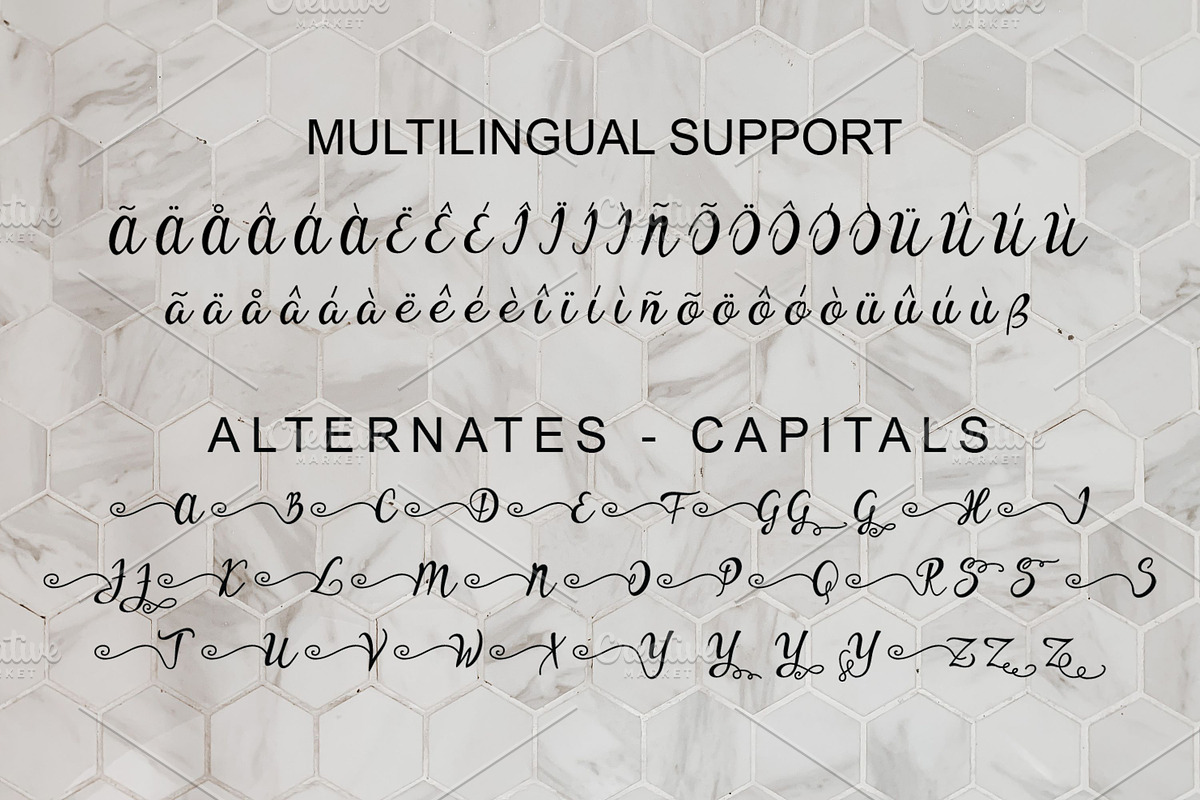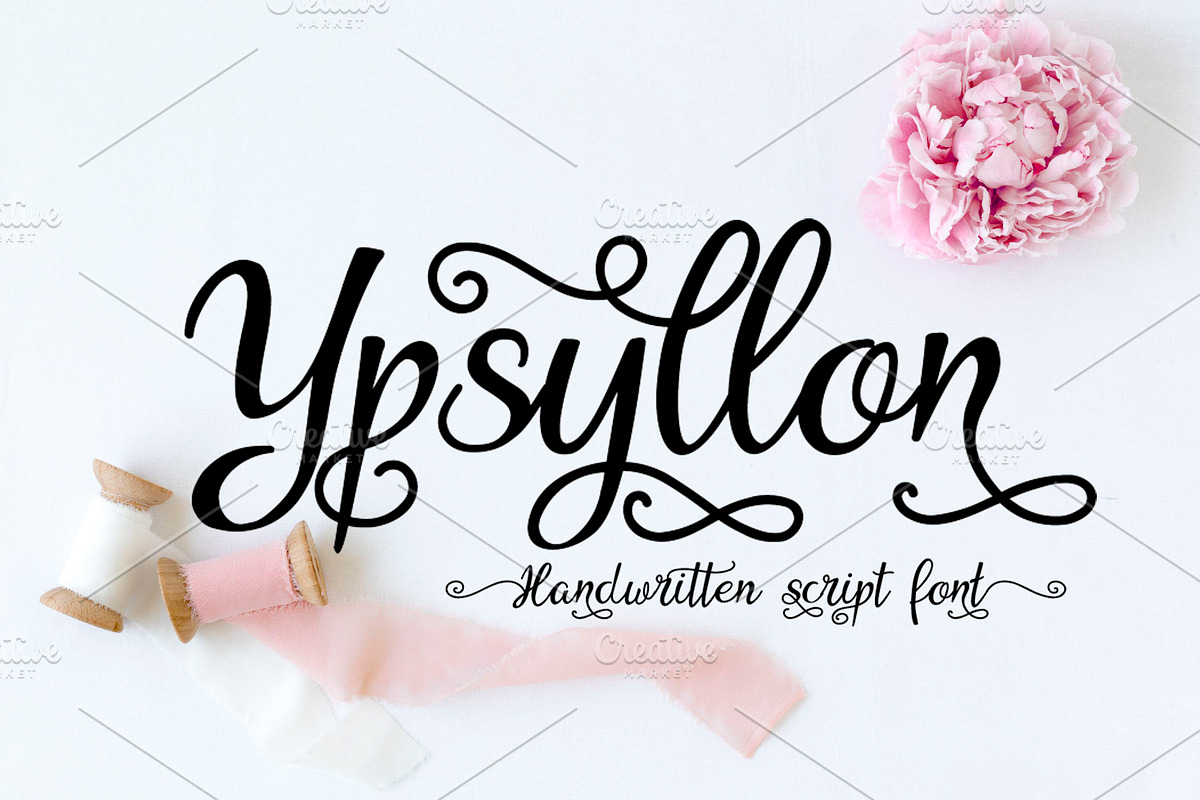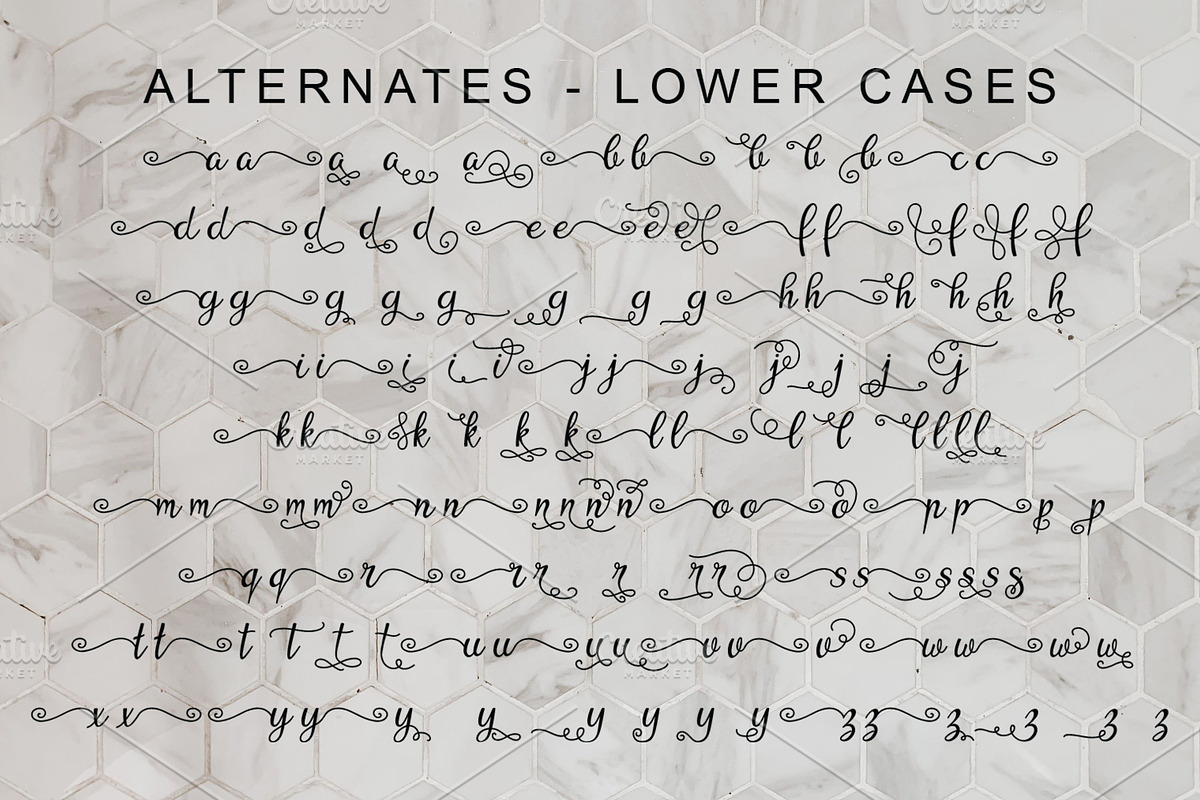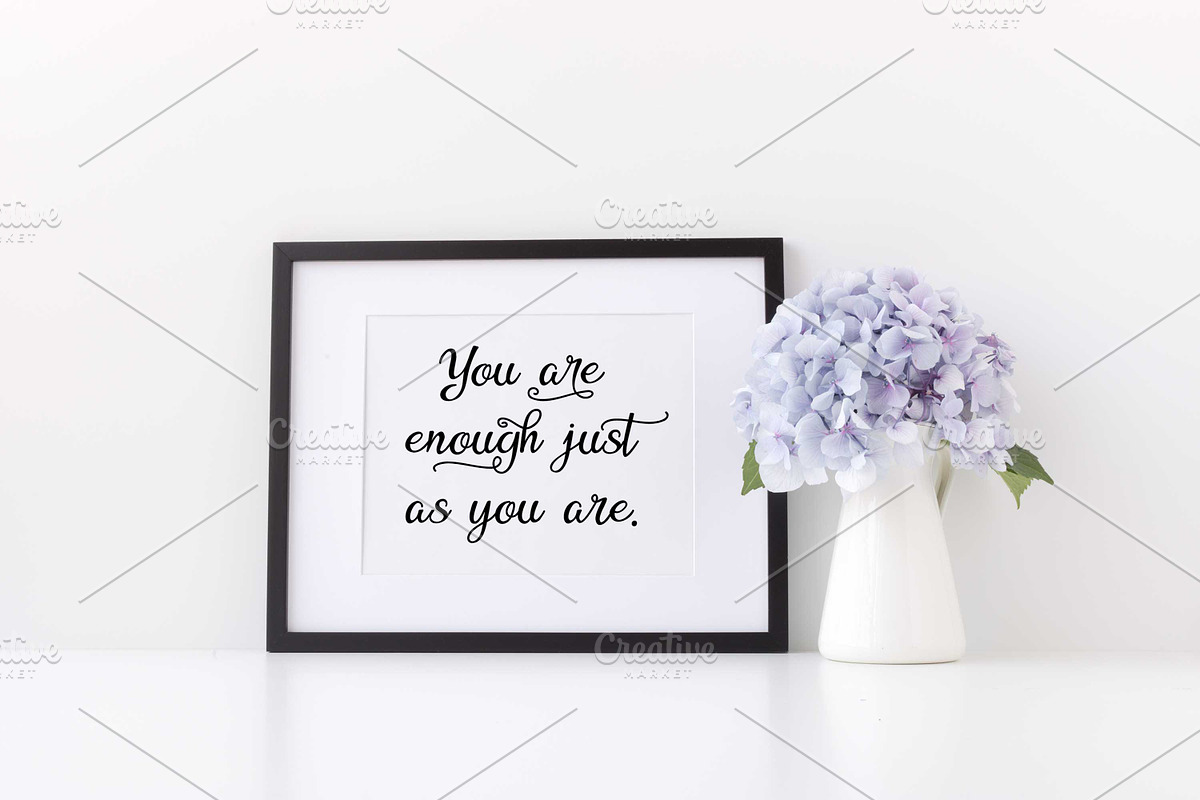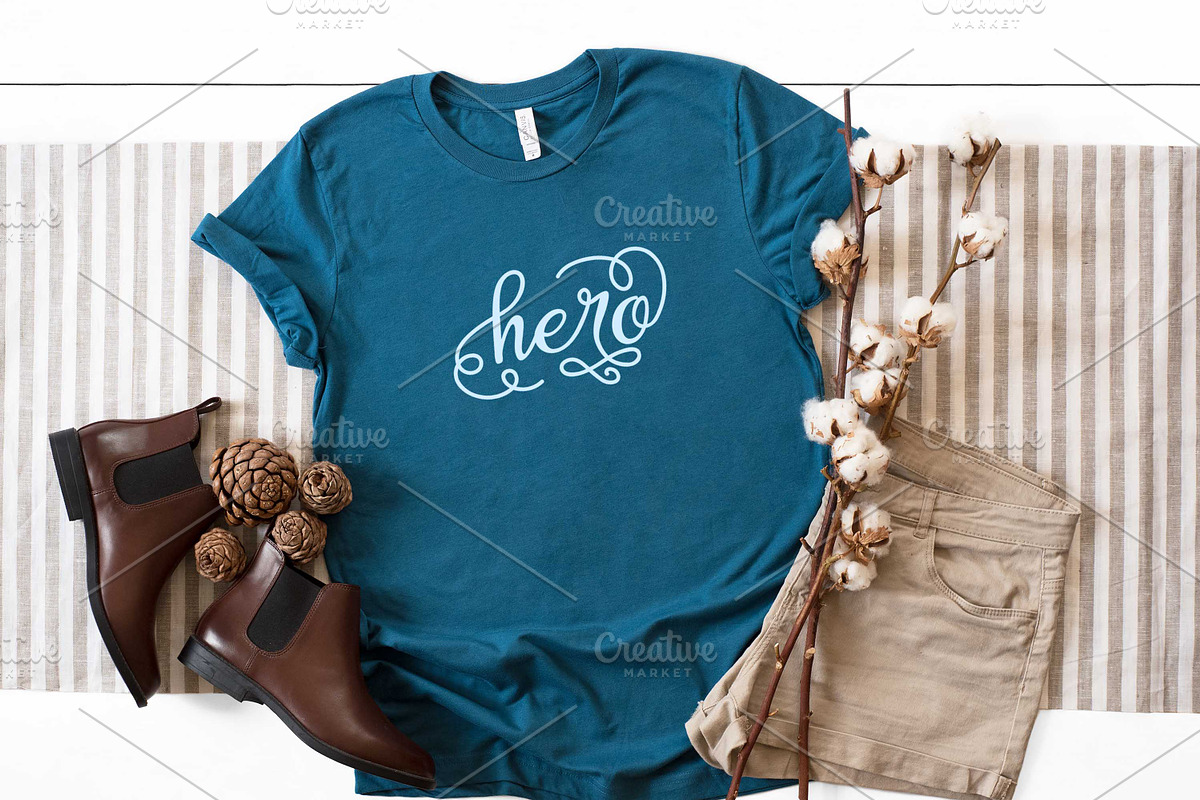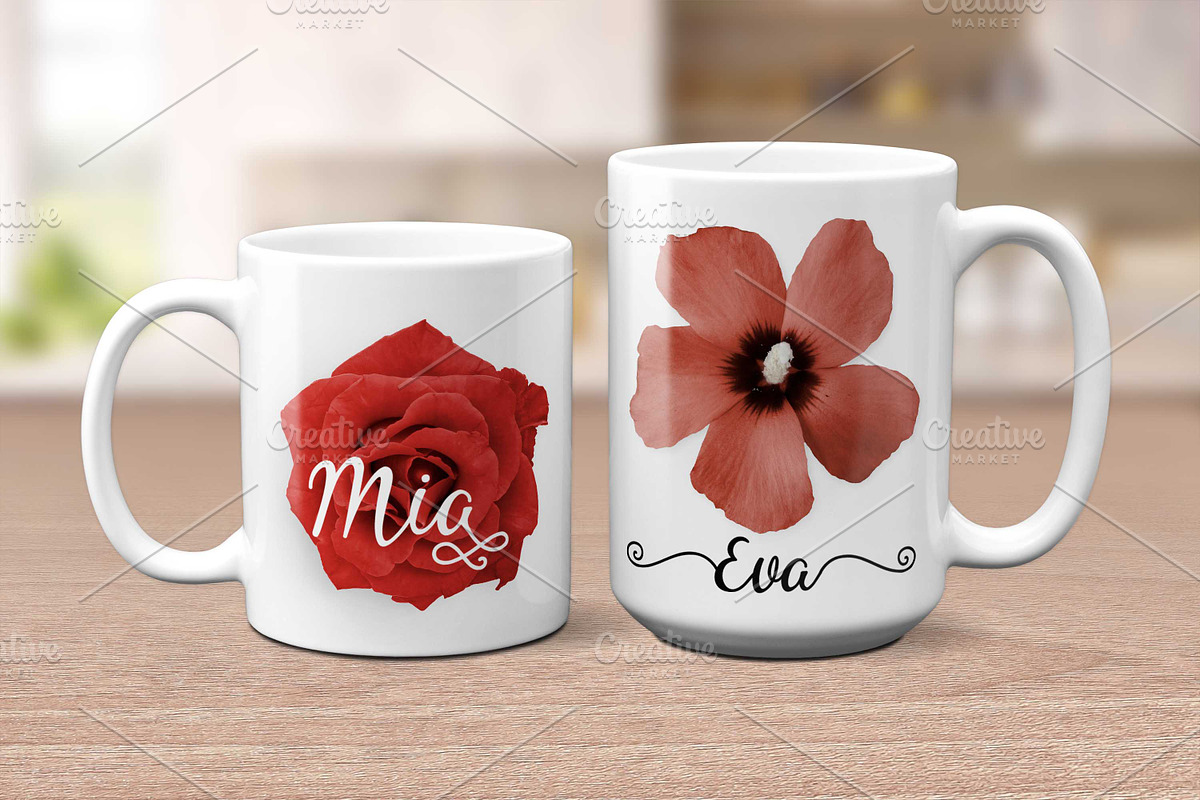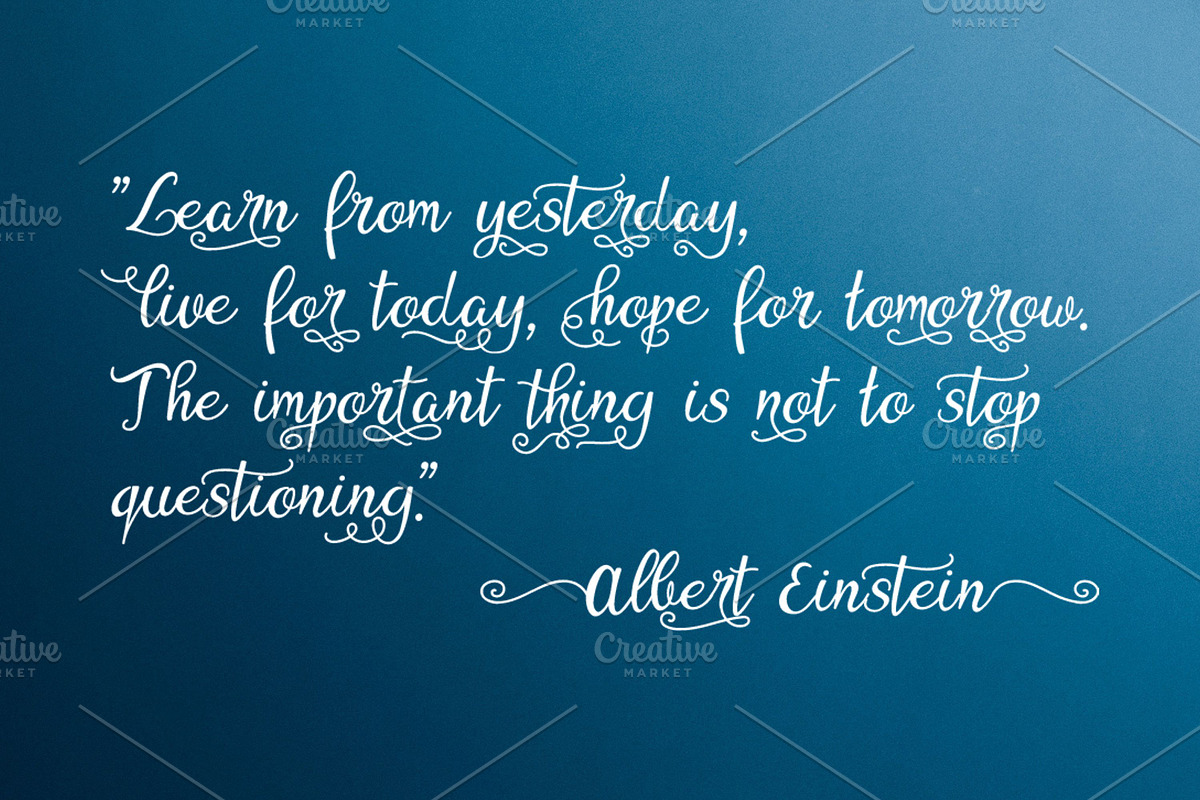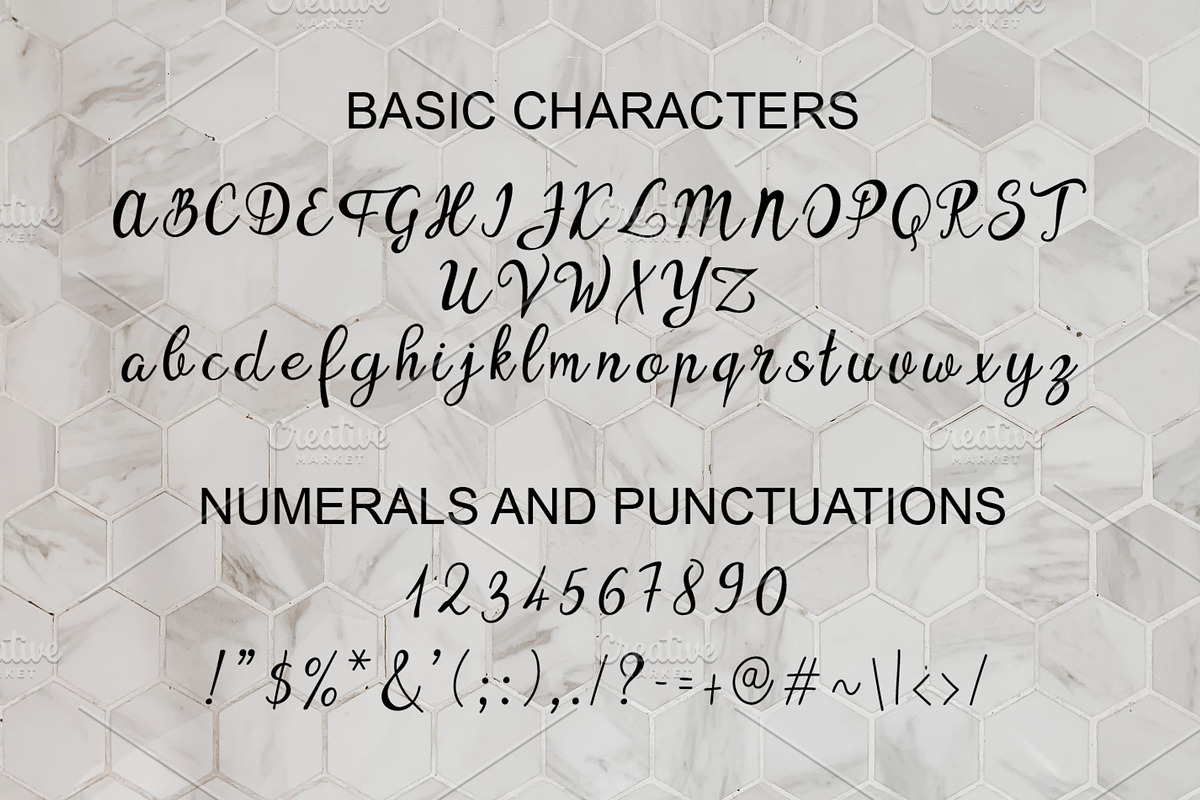
Ypsyllon
Ypsyllon is a very unique, modern, trendy and feminine handwritten font, can be used easily for creative projects due to many features in it.
This font contains a complete set of lowercase and uppercase letters, punctuation, numbers, multiple ligatures, stylistic alternates and multilingual support.